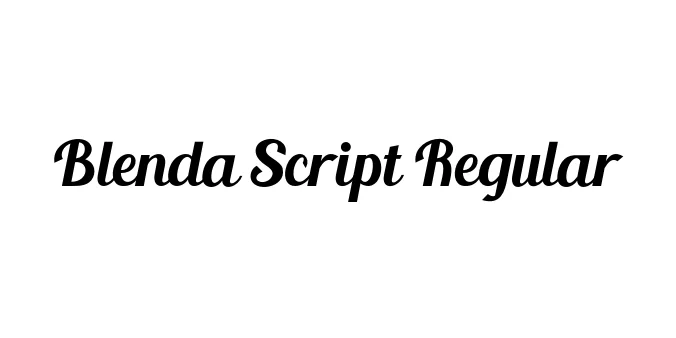
Blenda Script Regular
Designed by Swistblnk Design Studio
Blenda Script Regular is a bold, experimental script font inspired by the iconic Lobster font, but refined with its own unique vintage characteristics. This typeface features thick, brush-like strokes and elegant curves that capture the spirit of mid-century hand-lettering, making it an excellent choice for designers looking to blend a retro aesthetic with modern cleanliness.
The design of Blenda Script focuses on high-impact visual communication, offering a fluid rhythmic flow between characters. It is particularly effective for projects that require a strong, hand-crafted feel, such as identity branding, large-scale headlines, and packaging where a touch of classic nostalgia is needed to stand out.
Blenda Script Regular Best Uses
Crafting distinctive and memorable brand identities with a vintage touch.
Creating eye-catching titles for posters, magazines, and websites.
Designing bold graphics for t-shirts and merchandise.
Adding a premium, hand-lettered feel to product containers.